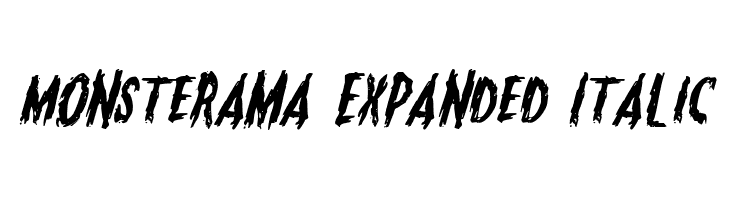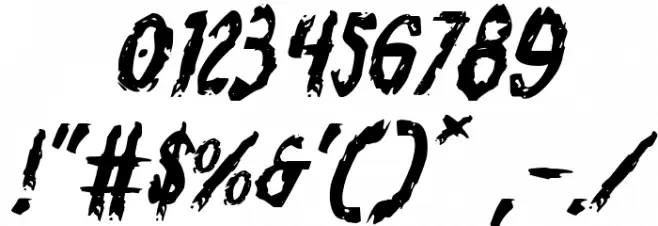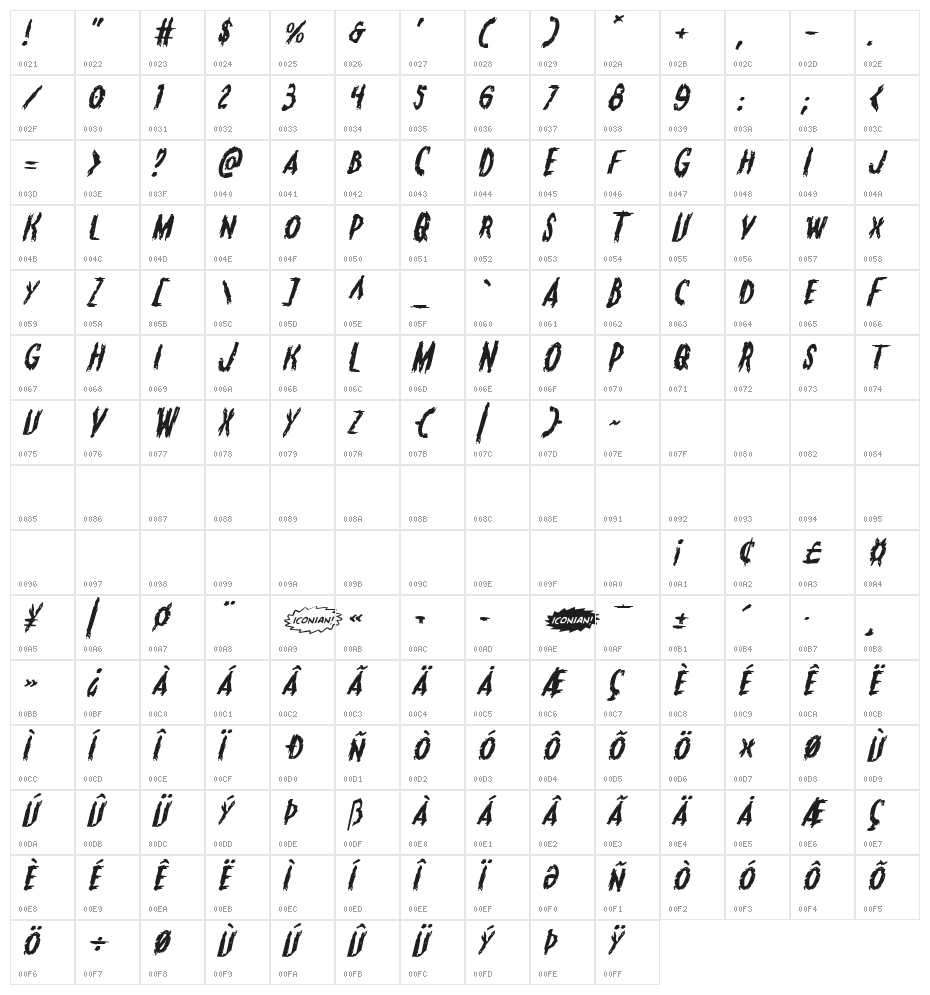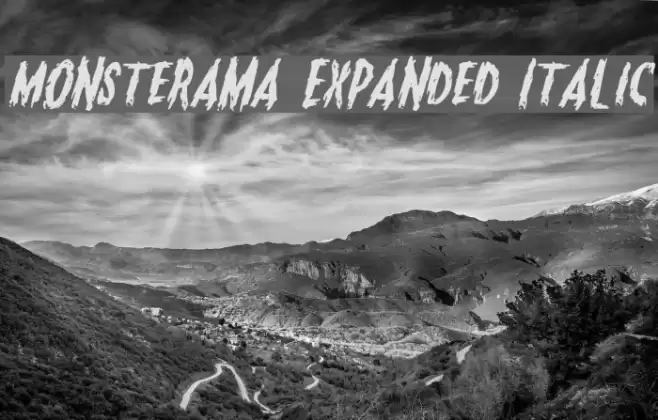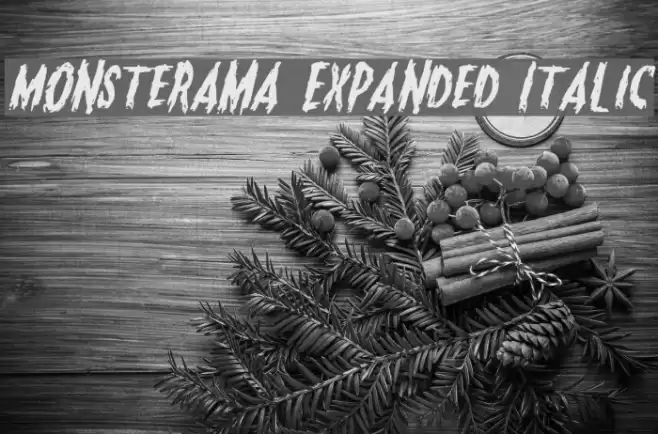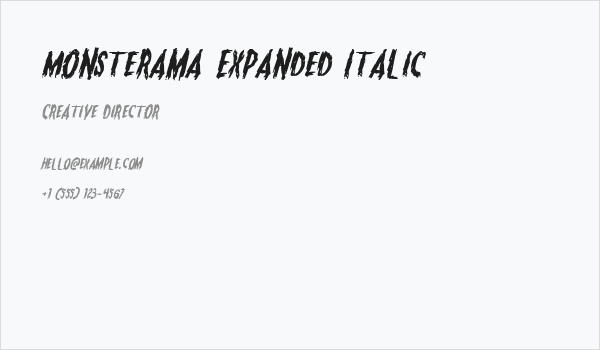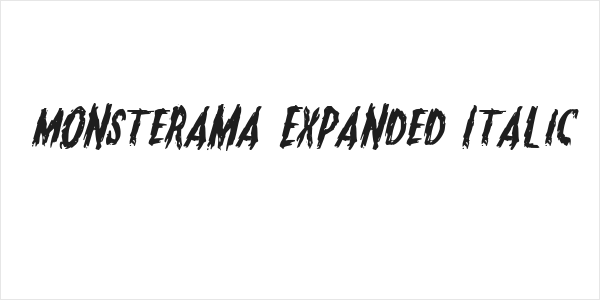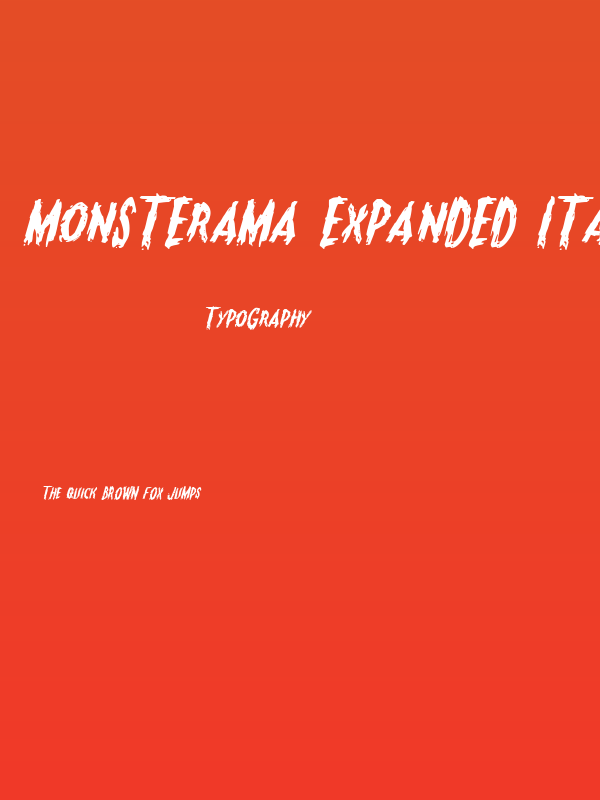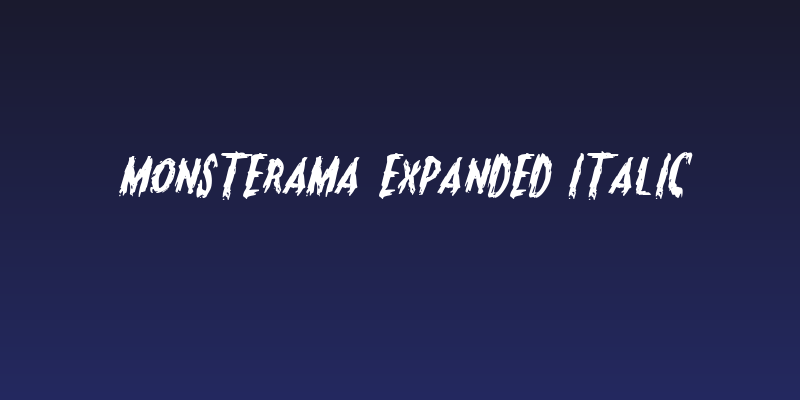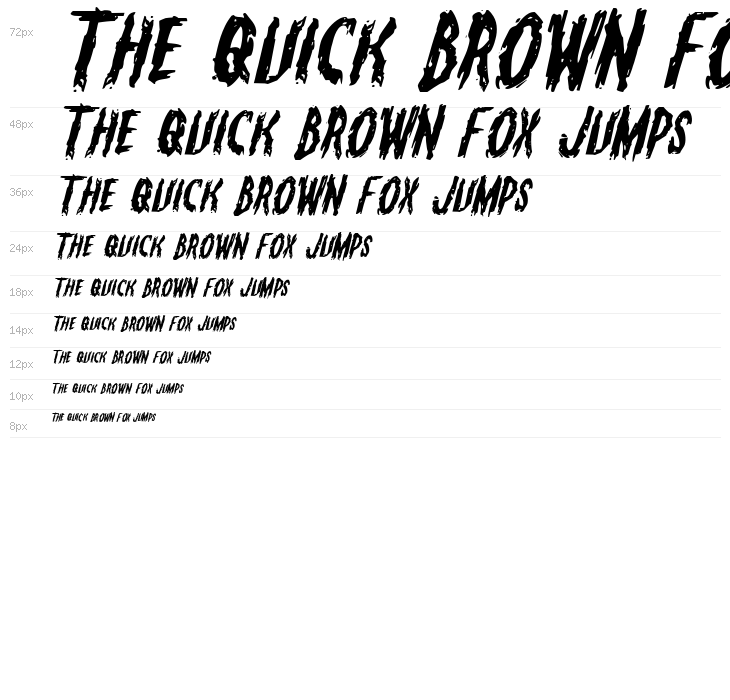
Monsterama Expanded Italic Font
Monsterama Expanded Italic Description
This font features a bold and dynamic style with an expanded and italicized form. The characters are designed with a rough, textured appearance, giving them a rugged and edgy look. The strokes are uneven, creating a sense of movement and energy. This font is highly decorative, making it ideal for attention-grabbing designs. The uppercase and lowercase letters maintain a consistent style, with numbers and special characters following the same aesthetic. The overall impression is one of boldness and creativity, suitable for projects that require a strong visual impact.
| Use Case | Headlines, Posters, Logos |
| Proposed Projects | Ideal for horror-themed designs, posters, album covers, and any project needing a dramatic and eye-catching font. |